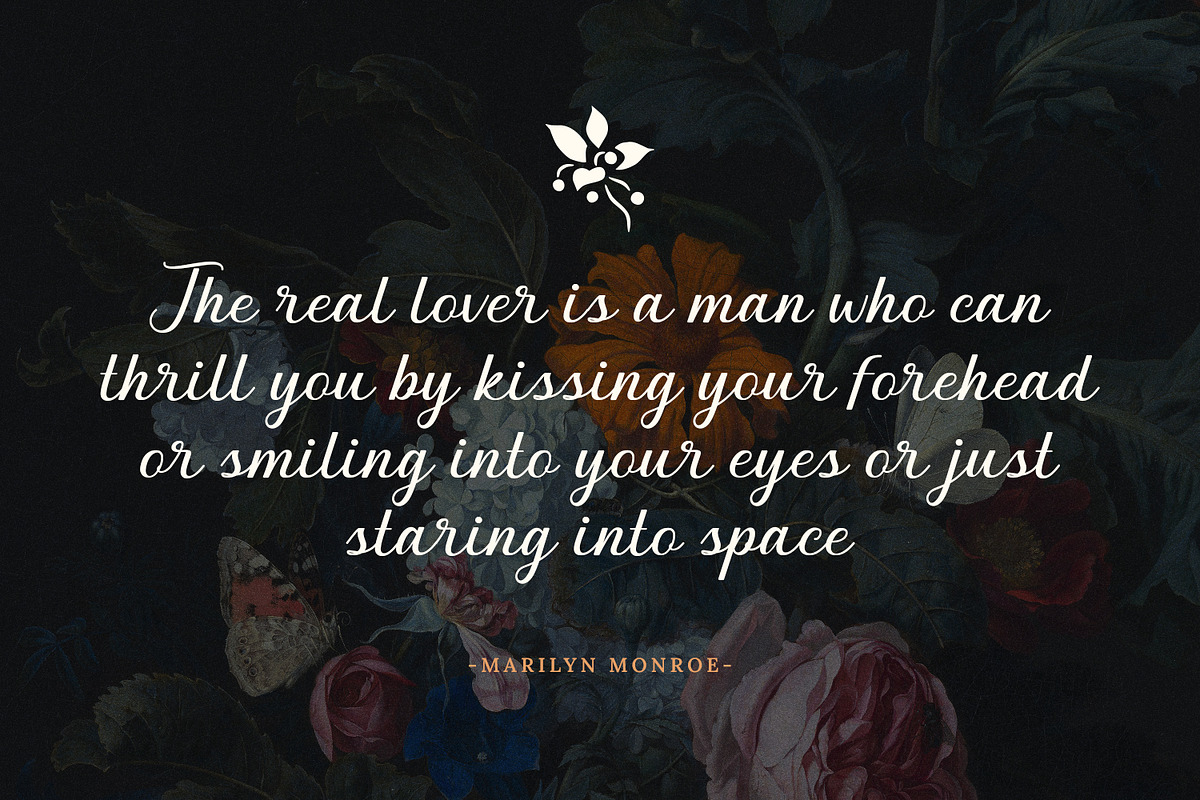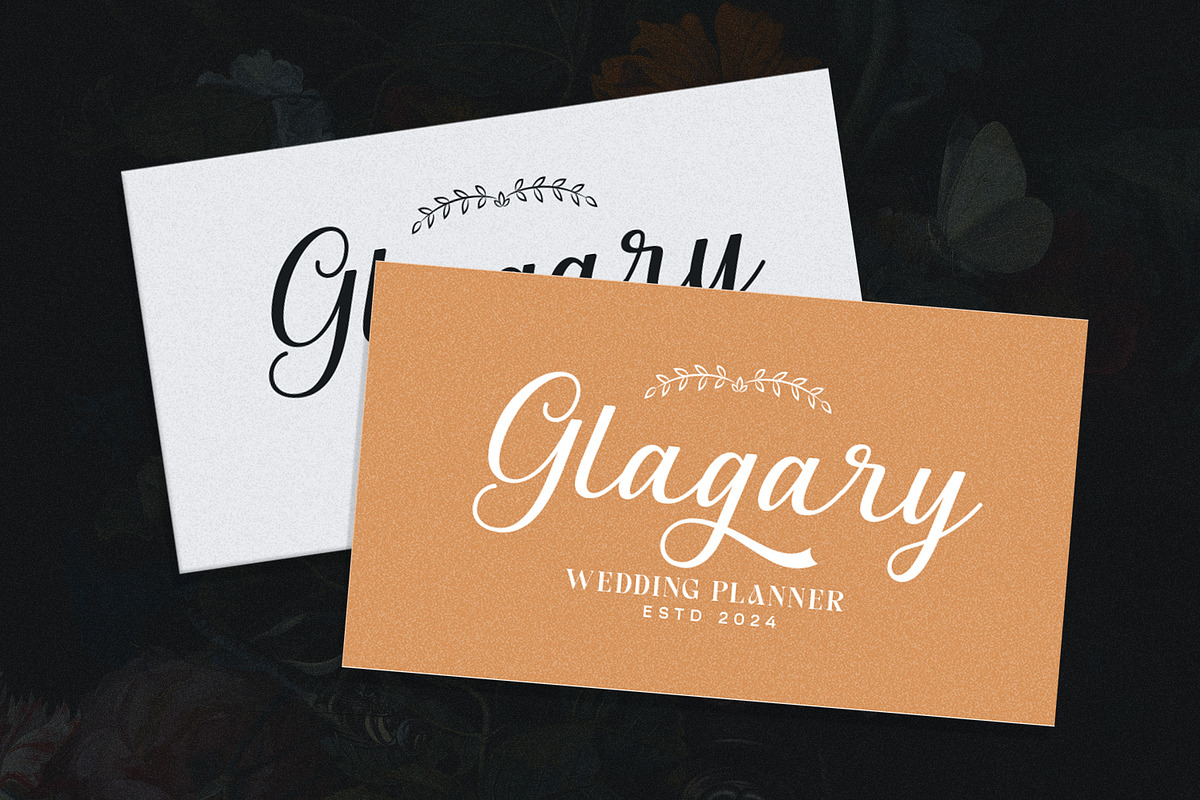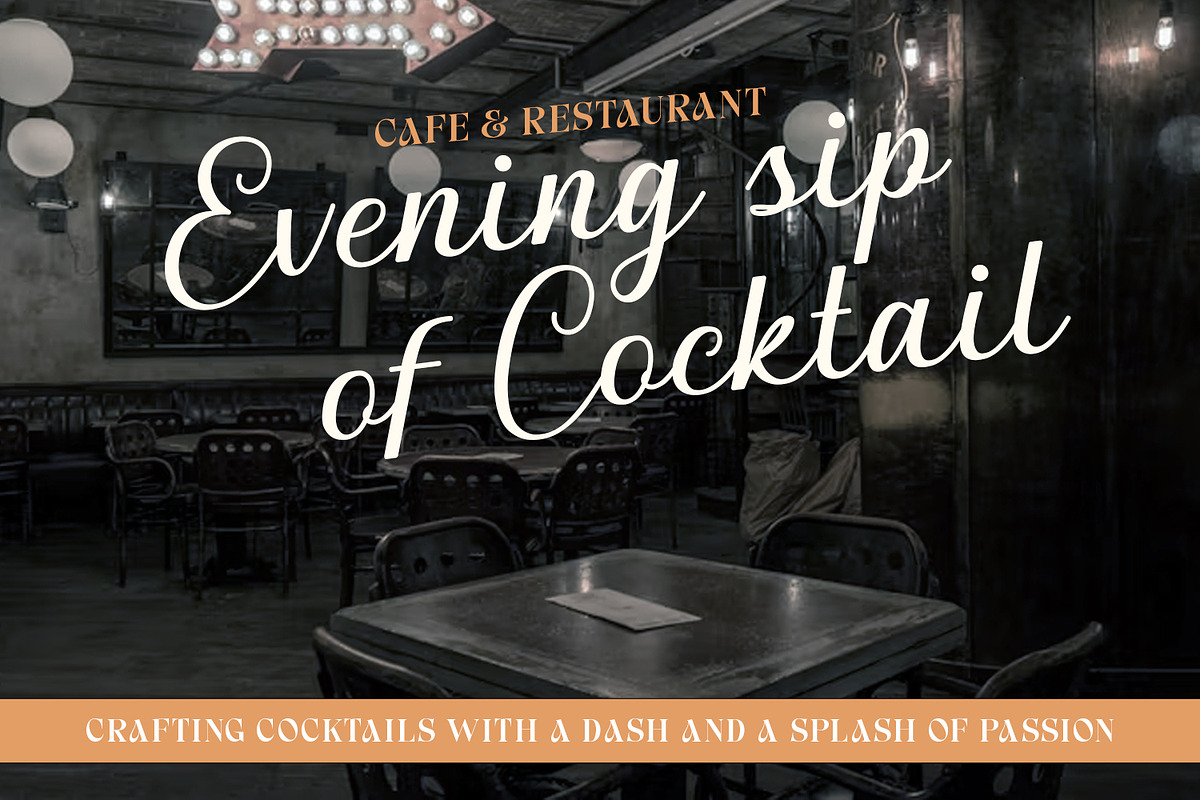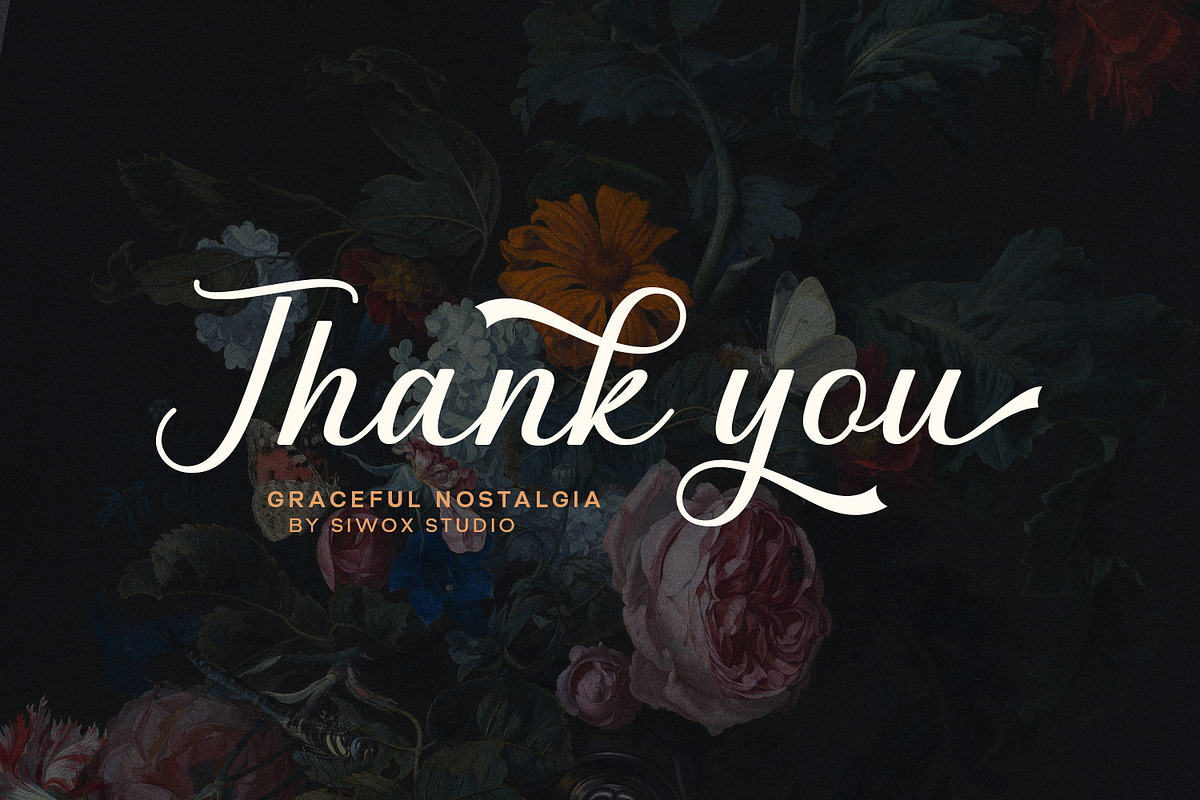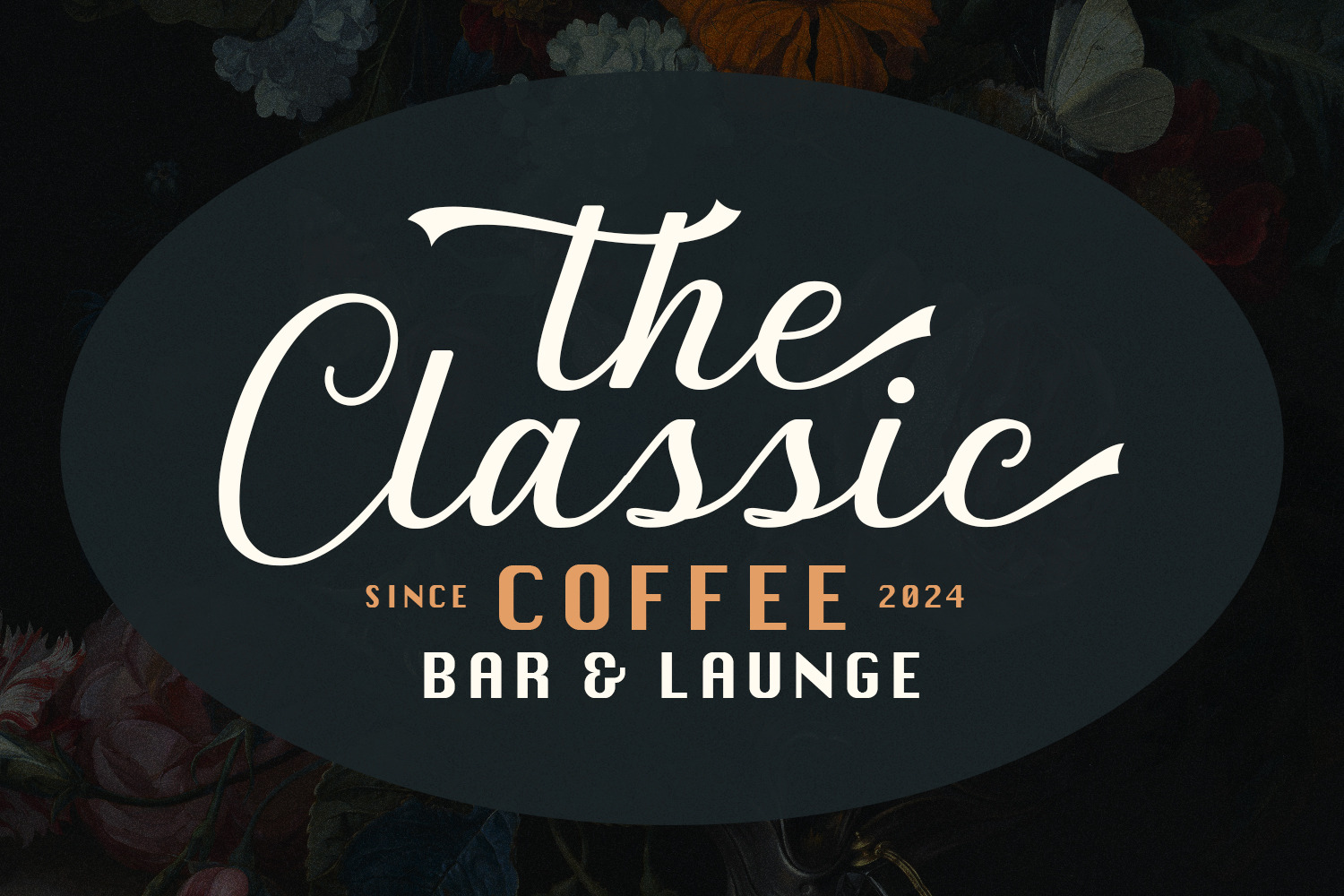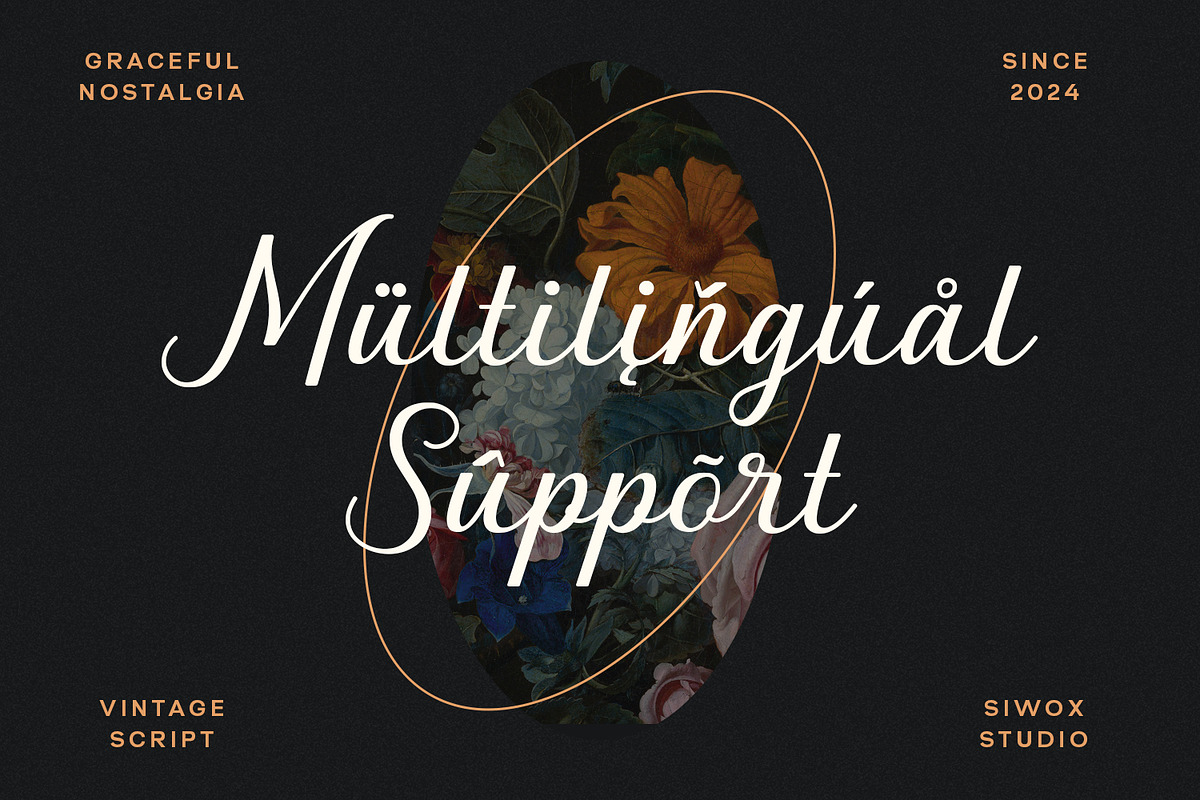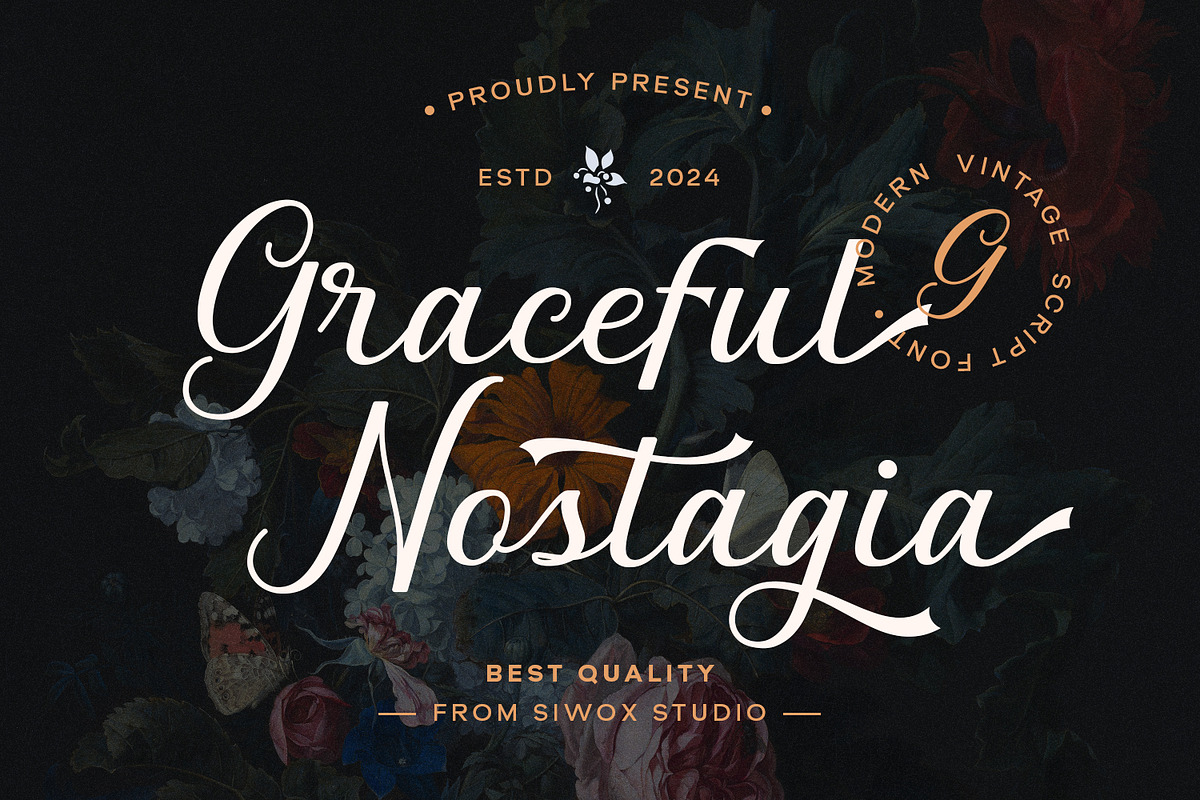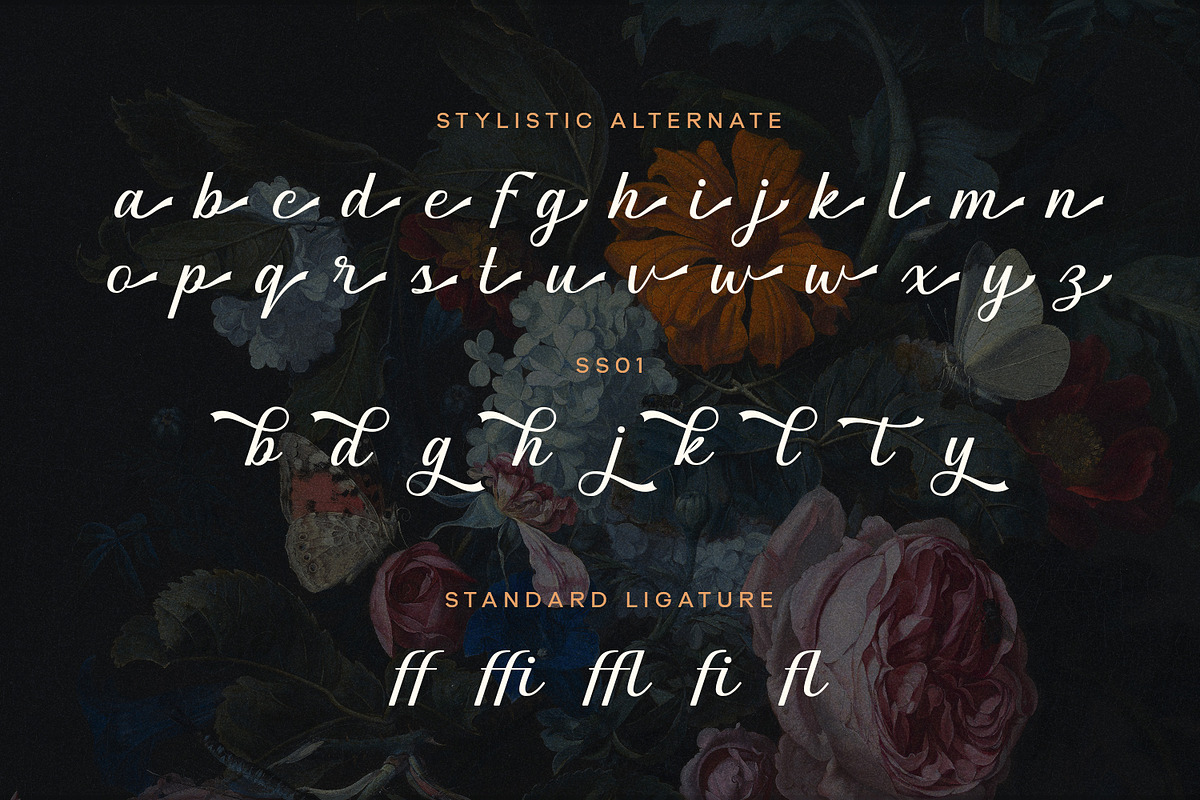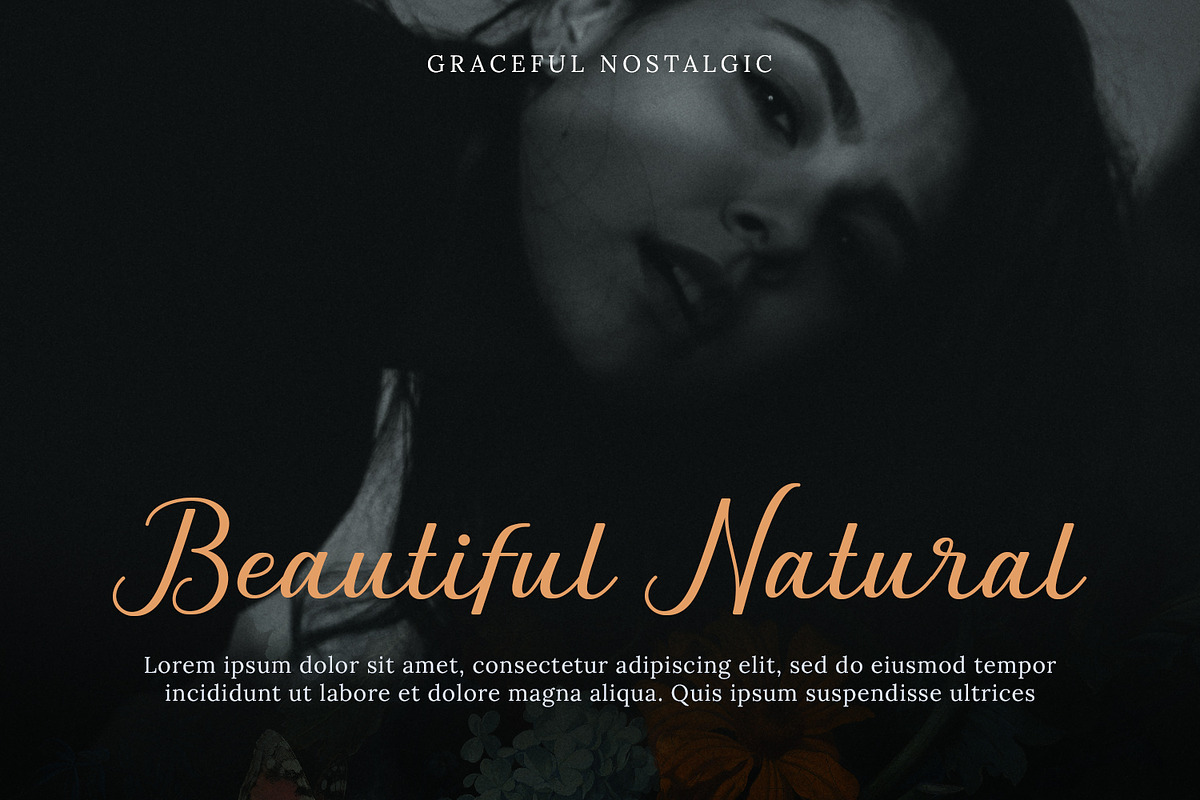
Graceful Nostagia Script Font
Graceful Nostalgia is a beautifully crafted script font that exudes vintage charm. Perfectly suited for a range of Design , this font shines in logos, invitations, labels, magazines, books, and greeting cards. Whether you're designing packaging, fashion materials, or stationery, Graceful Nostalgia adds a timeless touch to your creations, making every project feel special and refined